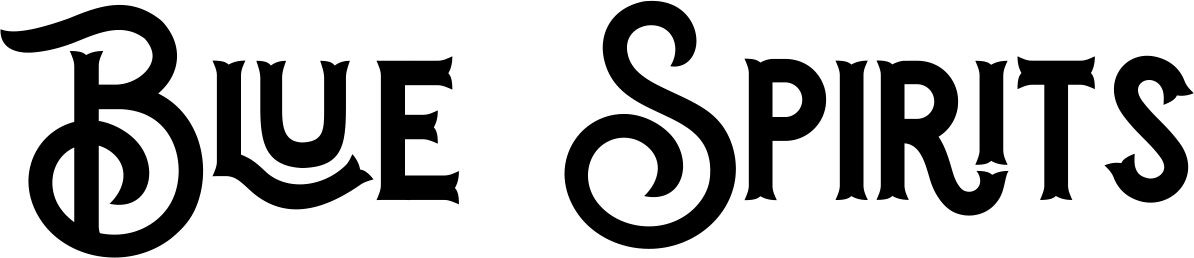
Blue Spirits Font
Blue Spirits and its stylish characters are all you’re going to need if you want to make a cool design project out of your graphics. It comes in two styles, both curly and elegant, but one of them is made of bold letters and the other a delicate set of inline white elements.
However, these two barbershop font files do not include the lowercase, proving themselves as great options for titles, headings, signs, logos, websites, and more. Brilliant, right?